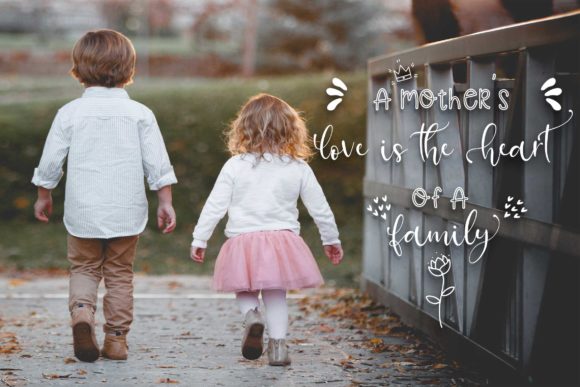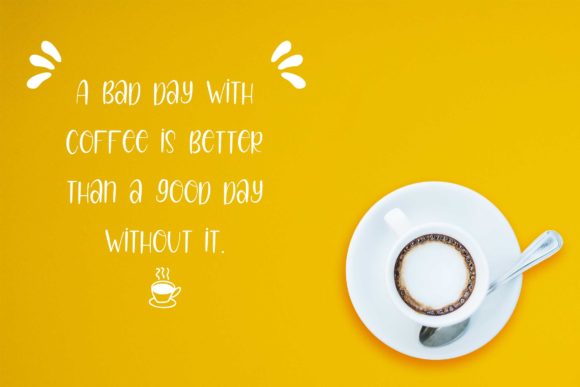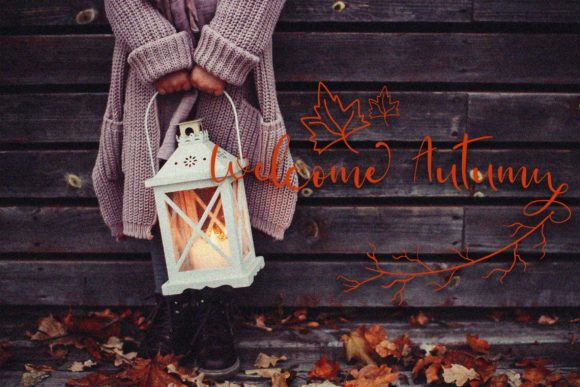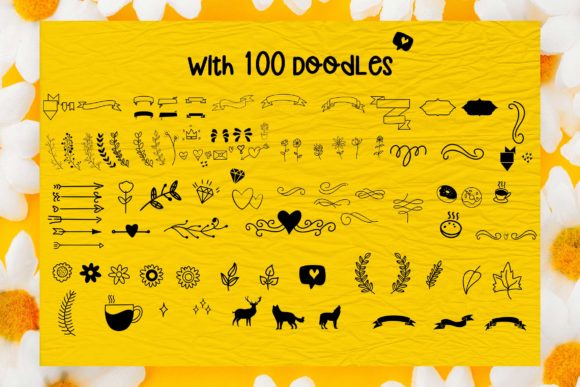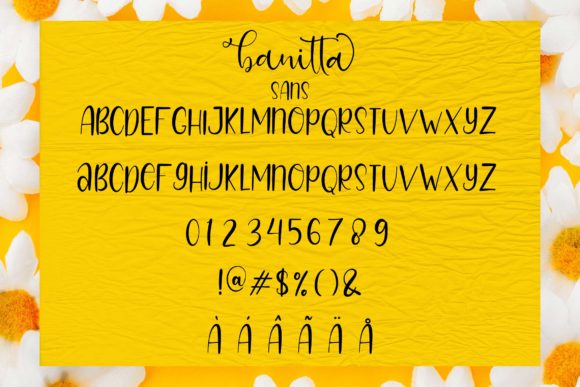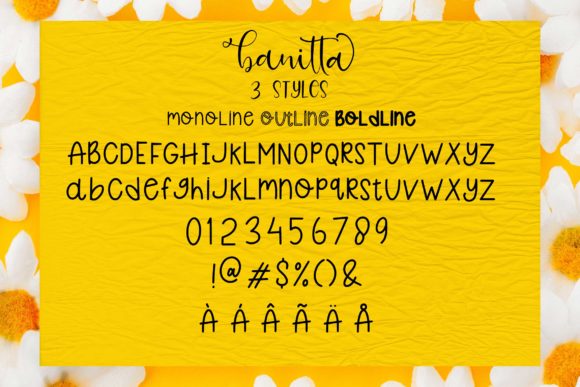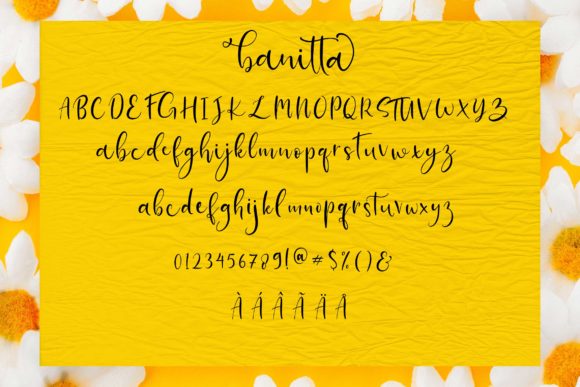
Banitta Family Font
About Banitta Family Font
Banitta is a sweet and powerful font family featuring a wide array of alternates and bonus doodles. Get creative with this unique set!